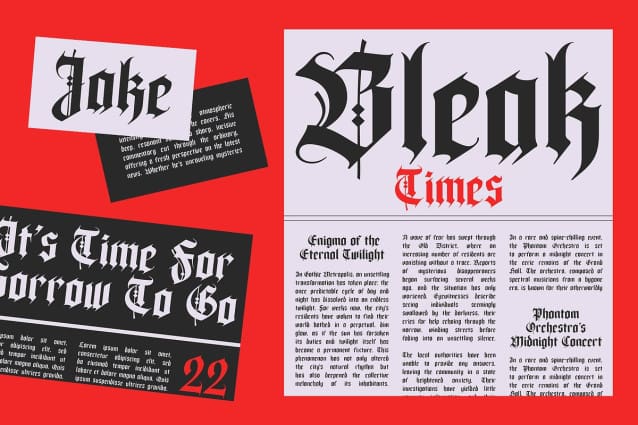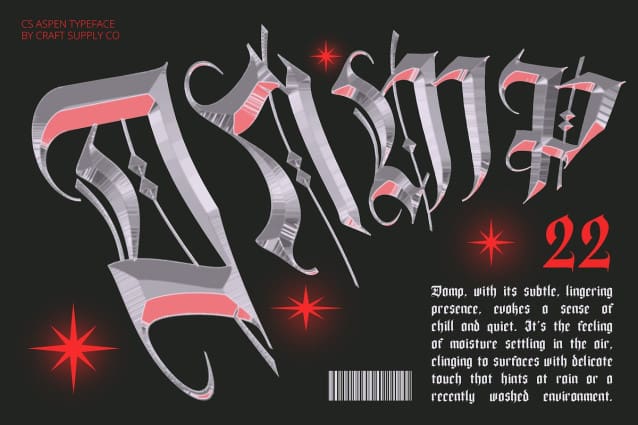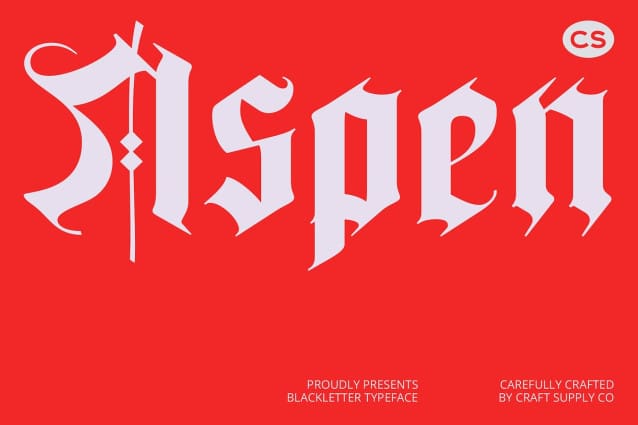
CS Aspen Font
CS Aspen Font is a display font that embraces the timeless elegance of Blackletter, also known as “Gothic” or “Old English.” This font features ornately designed letters with thick, sharp lines and intricate details, creating a classic and mysterious aura. Its distinctive and decorative design evokes a sense of antiquity and historical significance, adding depth and character to any project.
Dramatic and Enigmatic Aesthetic The Blackletter style of CS Aspen brings a dramatic and characterful quality to your designs. Its rich, ornate details and bold lines create a captivating and enigmatic visual effect, making it perfect for projects that require a standout appearance with a touch of historical gravitas.
Ideal for Elegant and Historical Projects CS Aspen is ideal for designs that seek to convey a sense of elegance and historical depth. Whether used in invitations, theater posters, or other contexts that aim to highlight historical or secretive elements, this font ensures a sophisticated and impactful presence. Its classic Blackletter design adds a touch of grandeur and significance, making your project truly memorable.